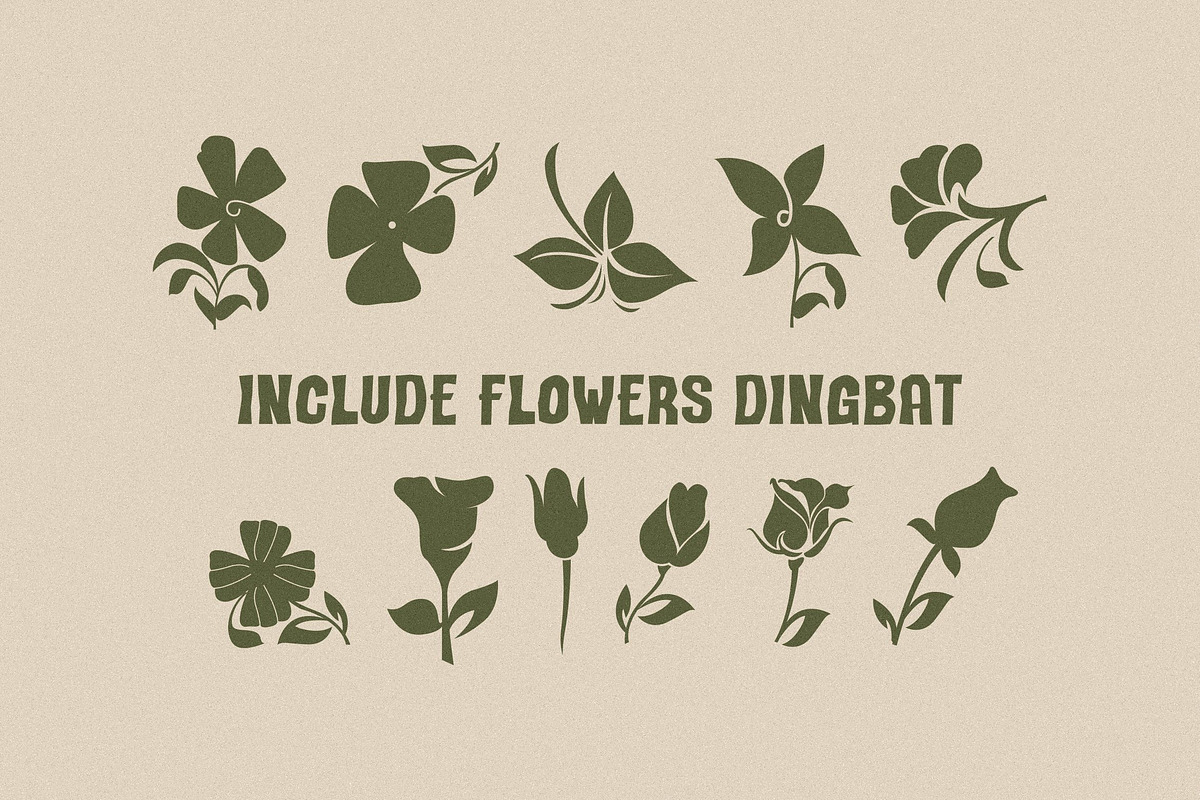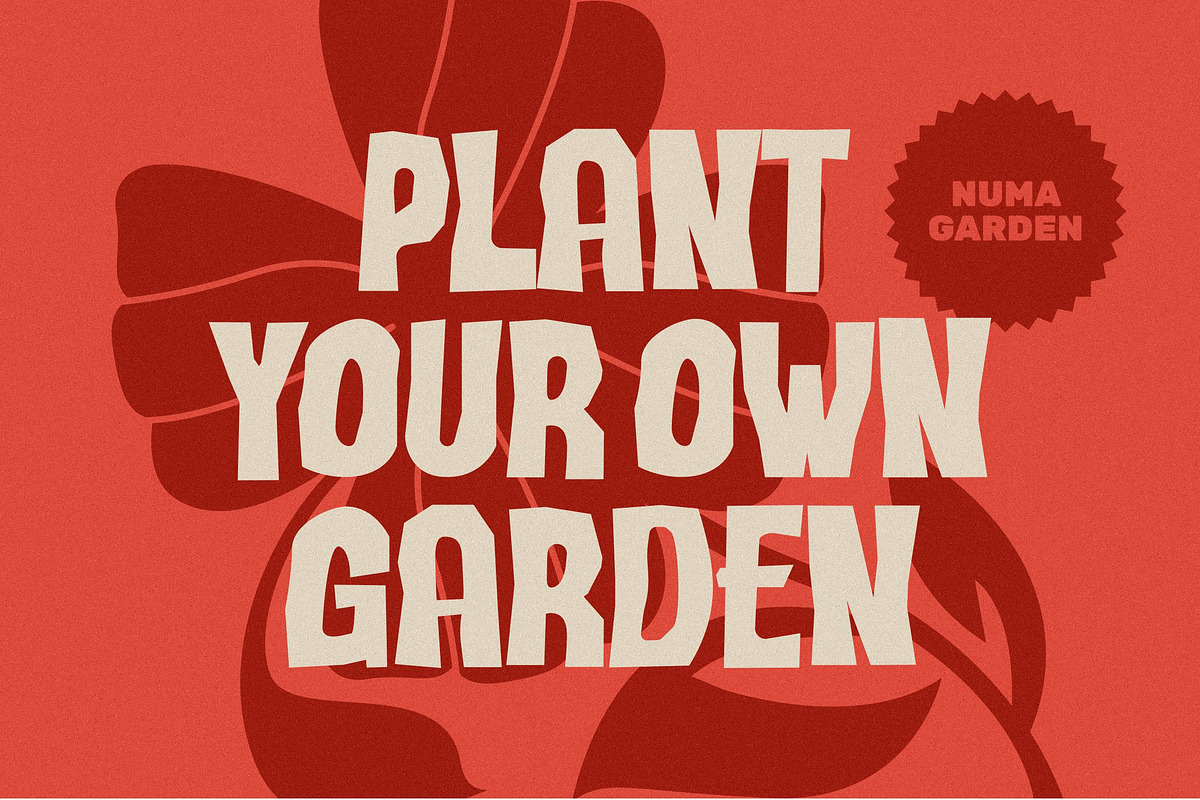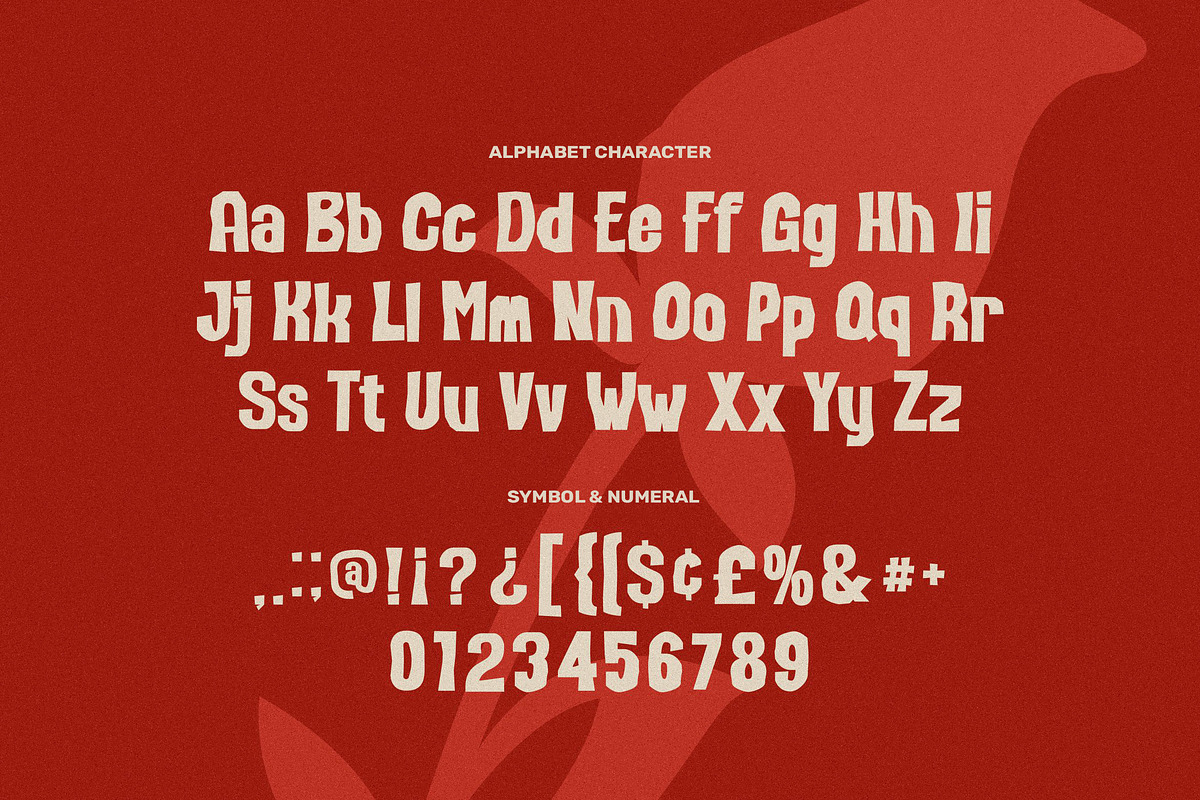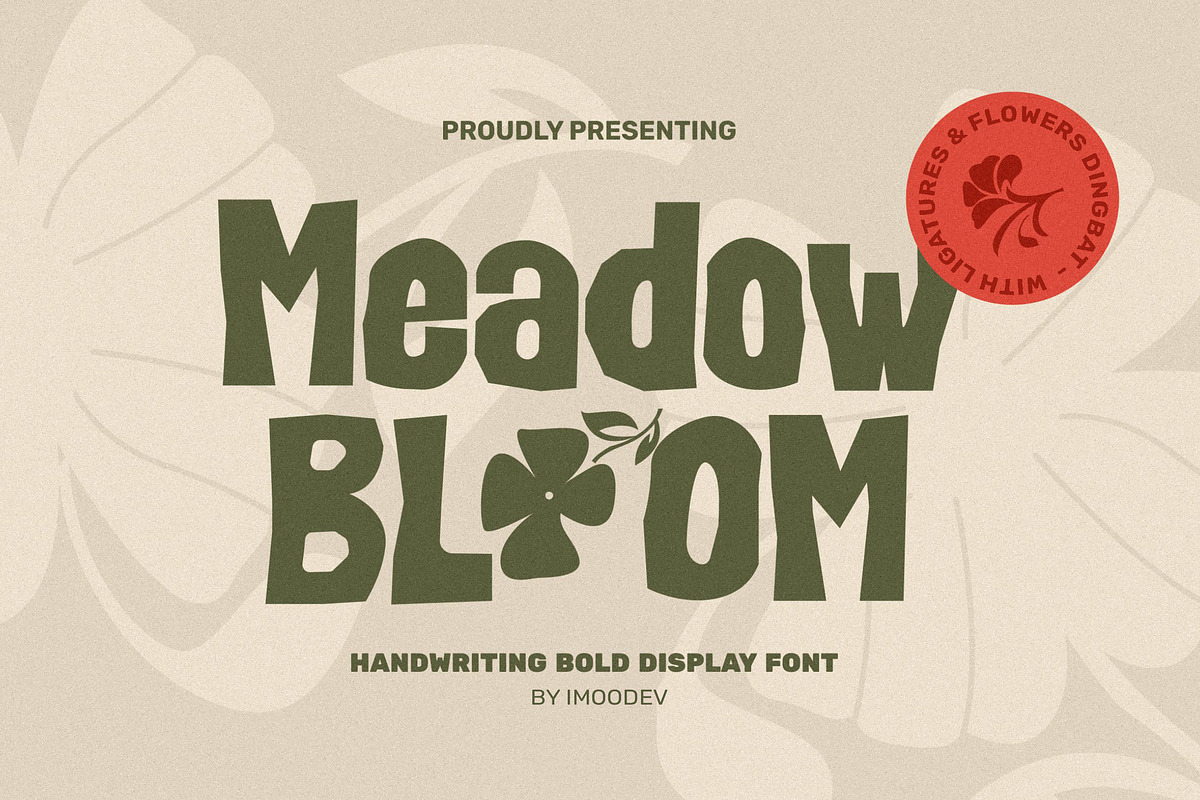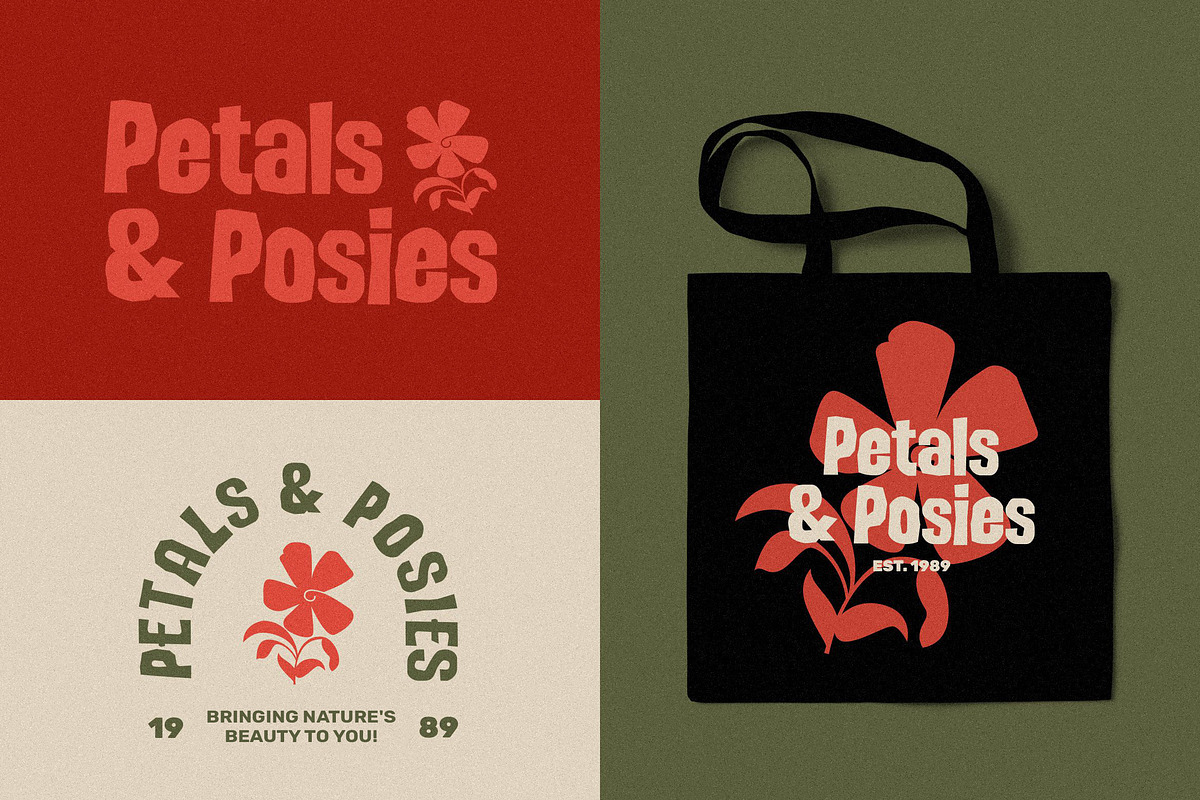
Meadow Bloom - Organic Handwritten
Introducing Meadow Bloom, a delightfully bold and organic handwritten font that radiates warmth and handmade charm. This font is perfect for projects that need a touch of playful personality.
The letterforms of Meadow Bloom letterform has a thick, substantial weight and imperfect edges, evoking the look of carefully crafted paper cutouts. The baseline is slightly uneven, giving your text a lively, natural rhythm that feels both authentic and approachable.
What truly makes Meadow Bloom special dingbats is the included set of beautiful flower and foliage dingbats. These illustrations perfectly complement the font, allowing you to effortlessly create stunning, nature-inspired compositions, logos, and patterns. With its groovy 70s vibe and modern appeal, Meadow Bloom is your go to font for branding, social media graphics, product packaging, and any project that needs a friendly, botanical touch.